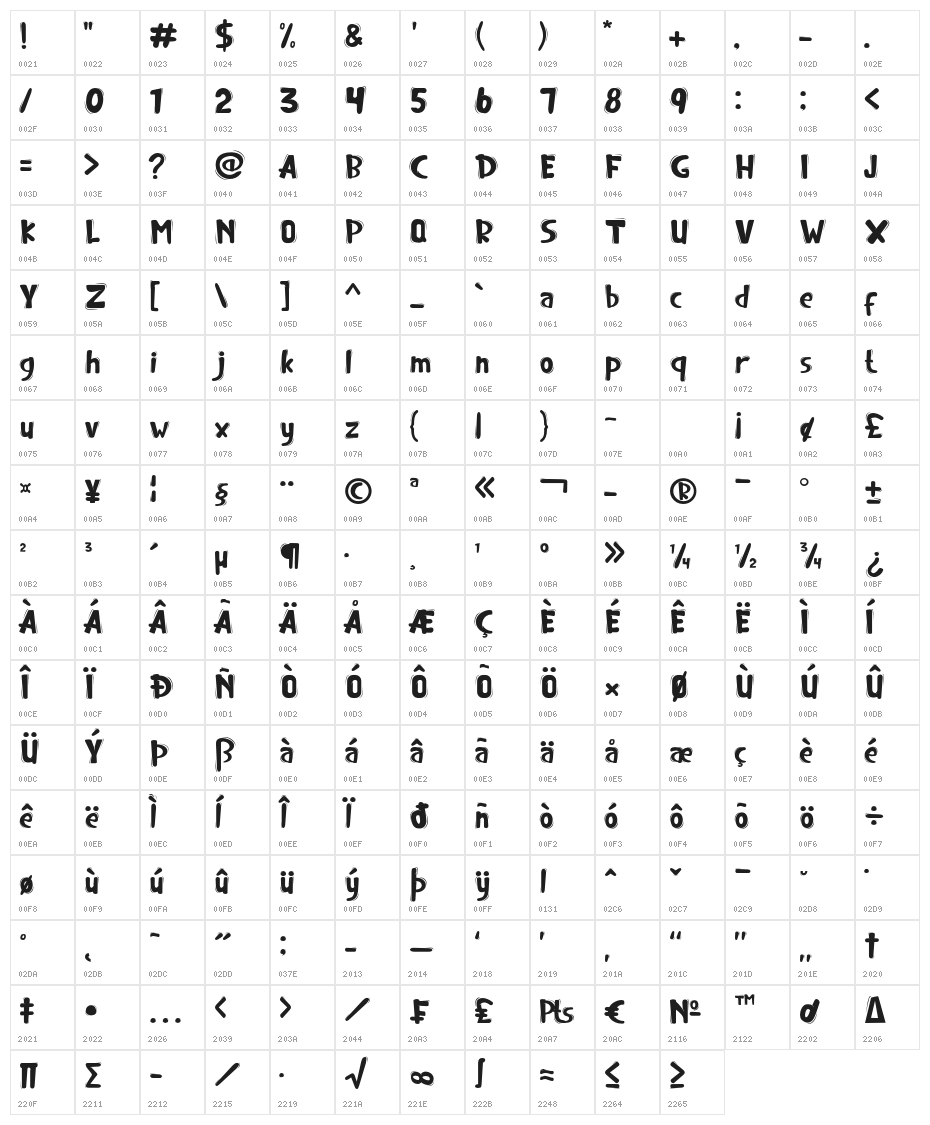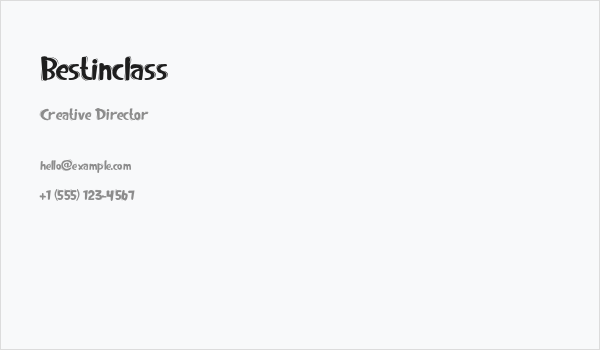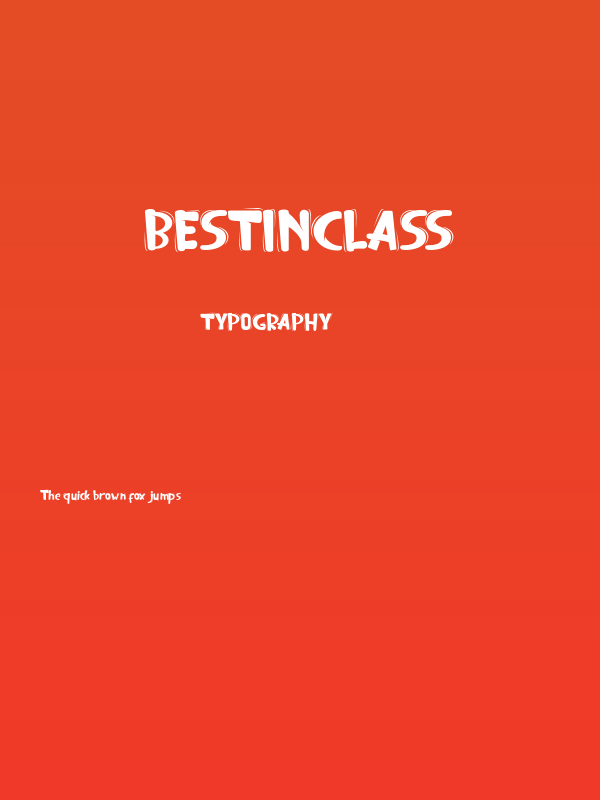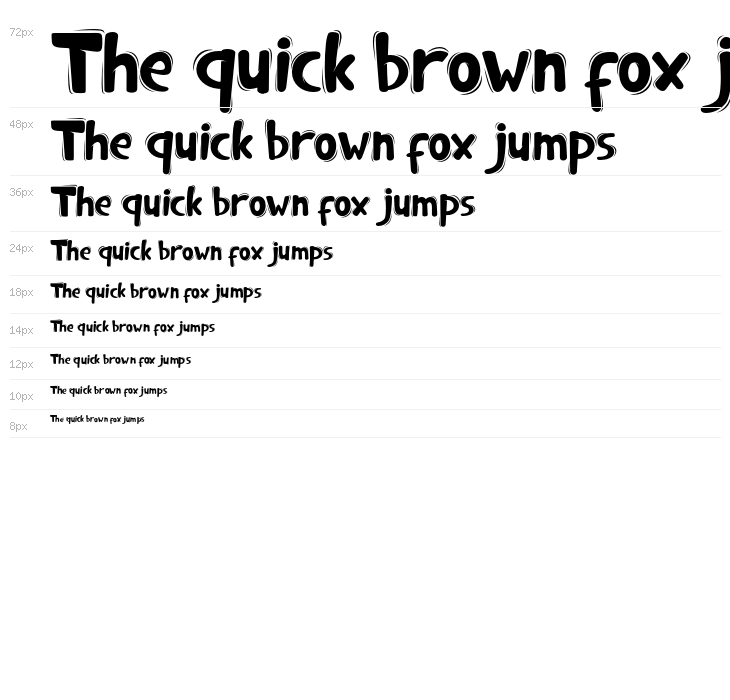
Bestinclass Font
Bestinclass Description
This font features a bold and playful design with a hand-drawn aesthetic. The characters have a thick, rounded appearance with a slight shadow effect that gives them a three-dimensional look. The strokes are uneven, adding a whimsical and informal touch. The uppercase and lowercase letters maintain a consistent style, while the numerals and special characters complement the overall design. This font is eye-catching and suitable for creative projects that require a fun and engaging typeface.
| Proposed Projects | Ideal for children's books, playful branding, posters, and creative social media graphics. |